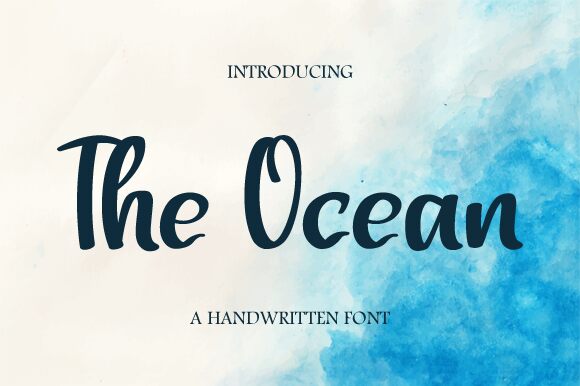
The Ocean by Nirmala Creative is a handwritten font that exudes an organic charm and fluidity reminiscent of a seaside breeze. Its letters flow with an effortless grace, capturing the rhythmic motion of waves lapping at the shore. This font's casual elegance is punctuated by its natural, unrefined edges that convey a sense of authenticity and warmth.
The Ocean's aesthetic appeal lies in its ability to evoke the spontaneity and expressiveness found in personal correspondence. Its style lends itself beautifully to projects requiring a touch of intimacy and personality, such as wedding invitations, greeting cards, or branding for boutique businesses seeking a handcrafted identity. The font's gentle curves and dynamic strokes make it ideal for creative endeavors where a human touch is paramount.